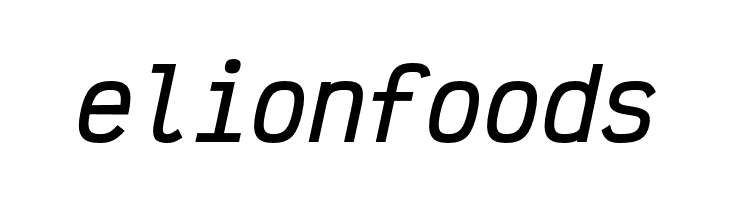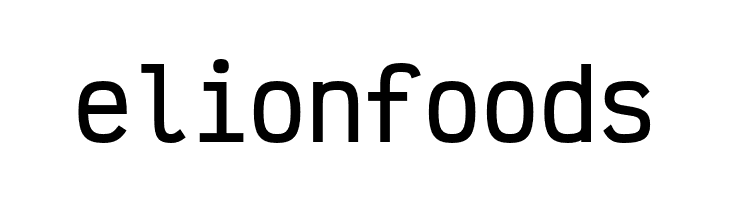
A modern, monospaced italic font with medium weight and balanced contrast.
A bold, oblique, monospaced font with medium contrast and modern appeal.
A monospaced, oblique font with a modern, technical look.
A modern, monospaced font with a clean and geometric design.
A modern, semi-bold monospaced font ideal for coding and data presentation.
A light, monospaced italic font with a modern and elegant style.
A bold, monospaced font with a clean and modern design, perfect for coding and technical documentation.
A bold, italicized monospaced font with a modern and dynamic style.
A thin, italicized monospaced font with elegant, consistent strokes.
A modern, monospaced font with clean lines and low contrast, perfect for coding.